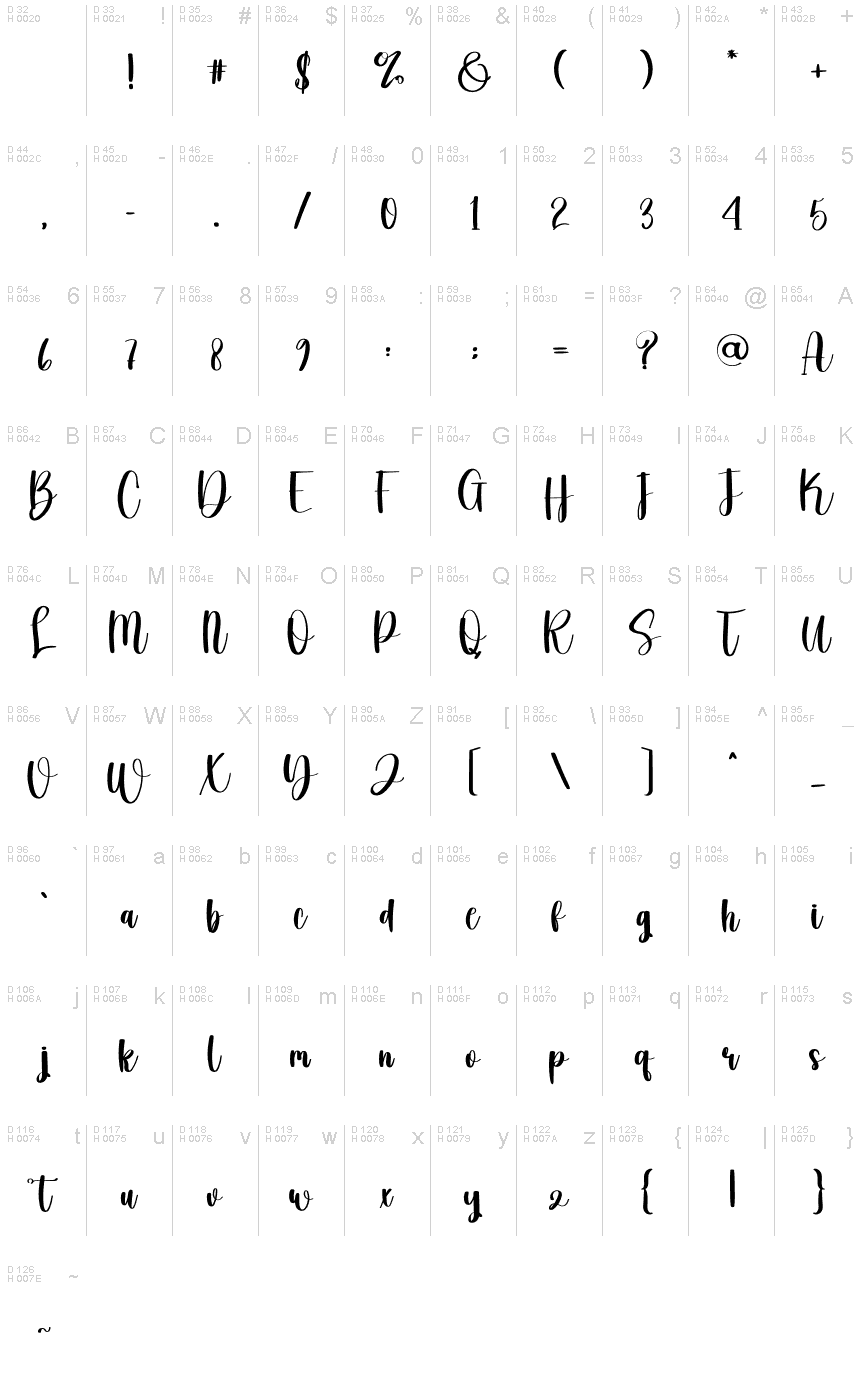
Walkouts
Walkouts, a captivating calligraphy font by FreshtypeINK, adds an elegant touch to any project. With its fluid strokes and graceful curves, this font brings a sense of sophistication to wedding invitations and event planning projects. Its versatility also shines through in fashion editorials and luxury branding, where it effortlessly conveys style and glamour. Whether you're designing exquisite logos or creating impactful social media graphics, Walkouts is the perfect choice for those seeking a refined and polished look. Let this mesmerizing calligraphy font elevate your designs to new heights.